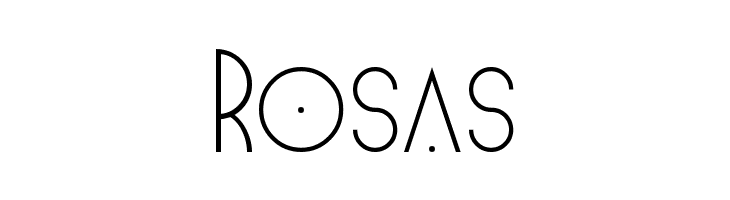
Amberia Font
- Font: Amberia
- No. of Characters:: 128
( Fonts by ARRF Designs )
An Art Deco-inspired font with geometric shapes and elegant embellishments.